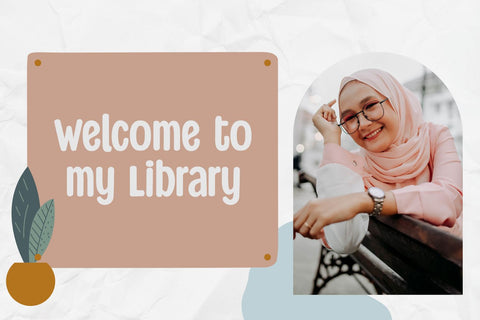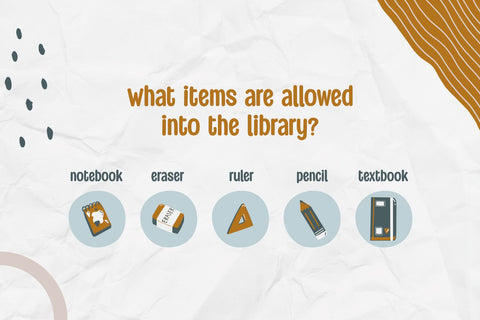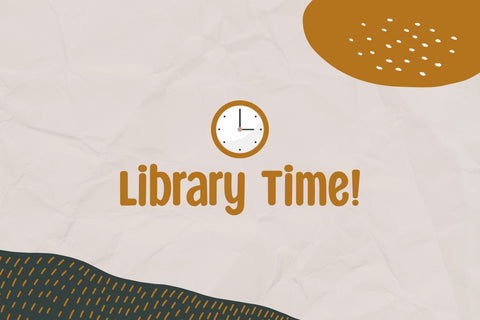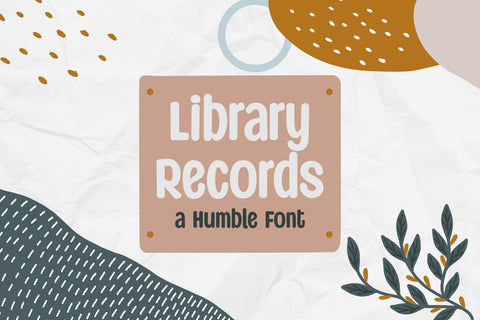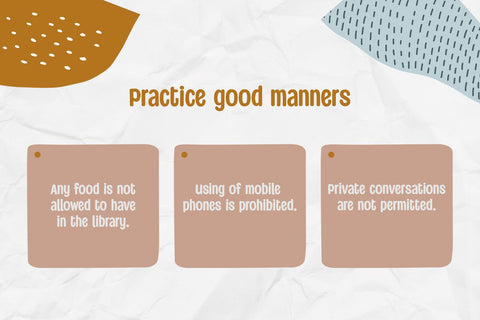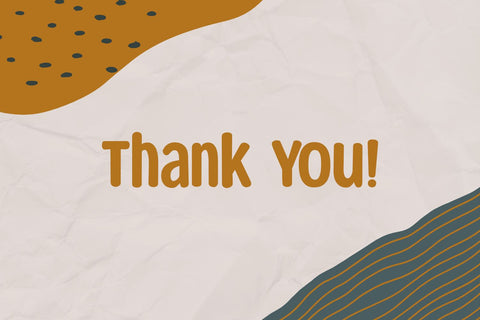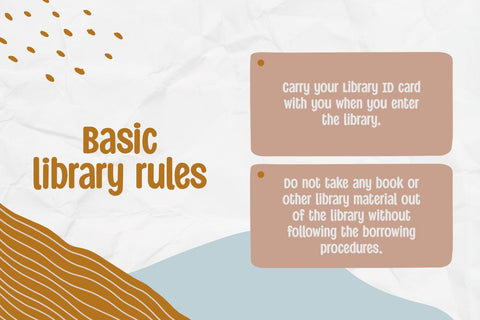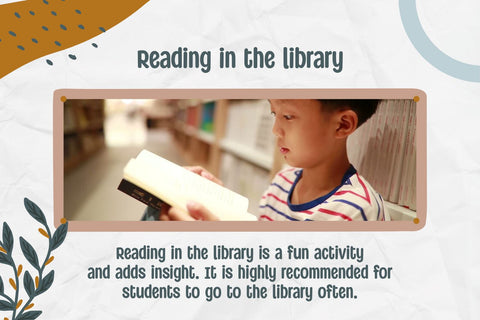
Library Records - a Humble Font
Library Records is a cool and humble display font. It embodies playfulness and authenticity and is the perfect choice for any children activity or school project.